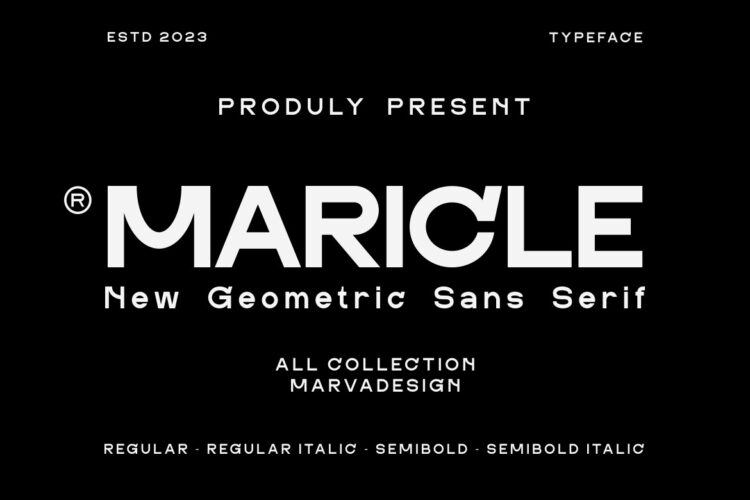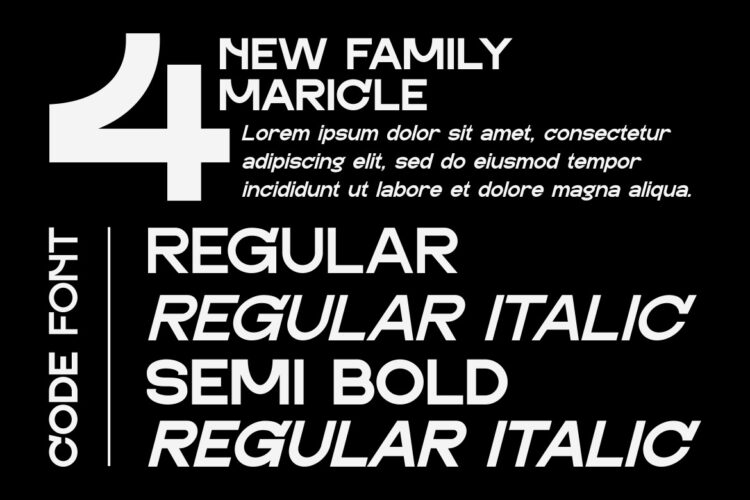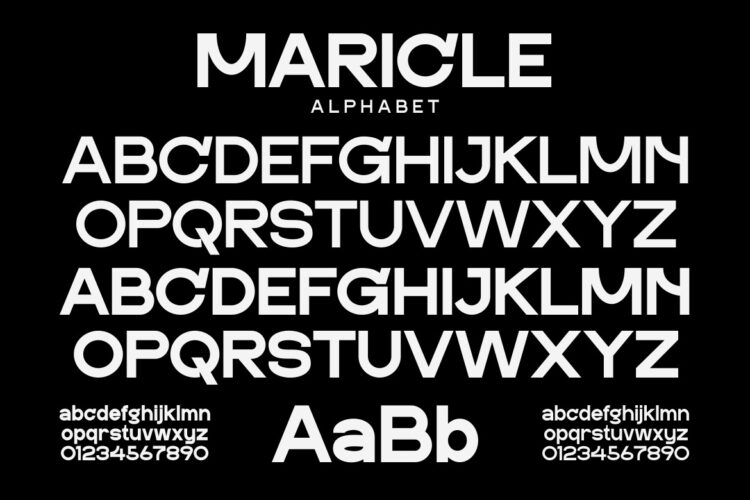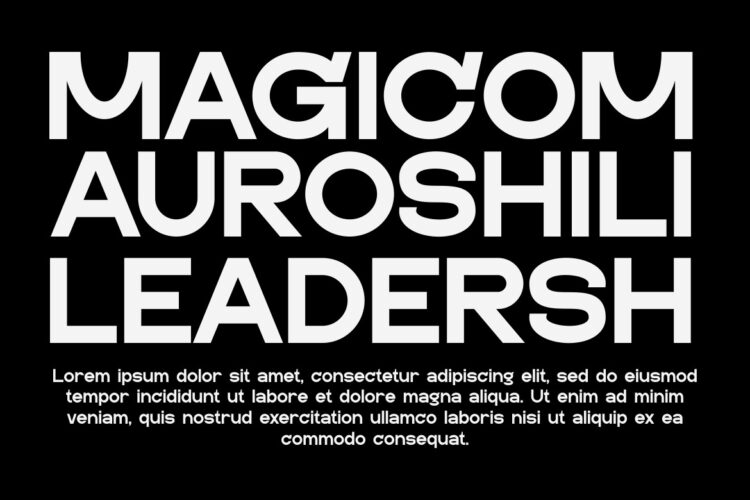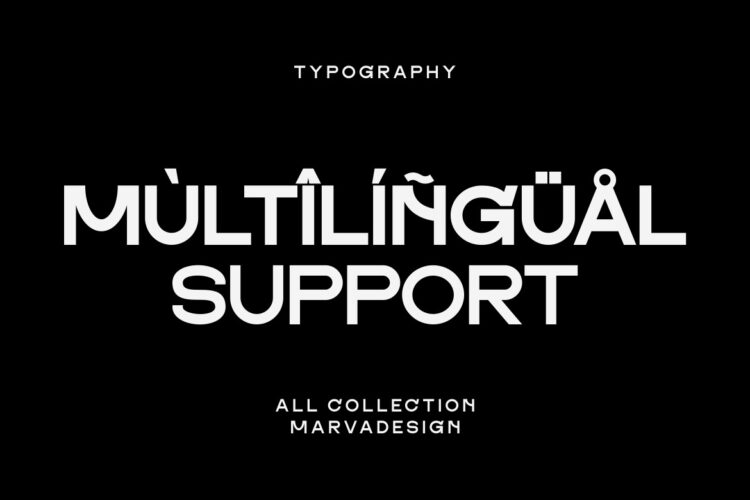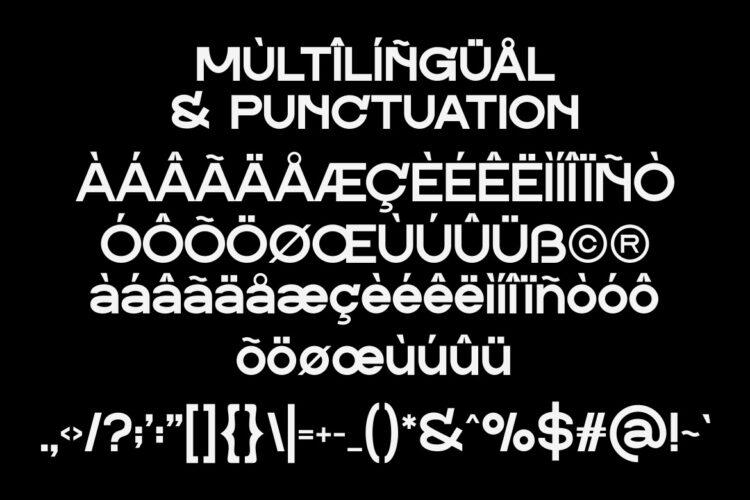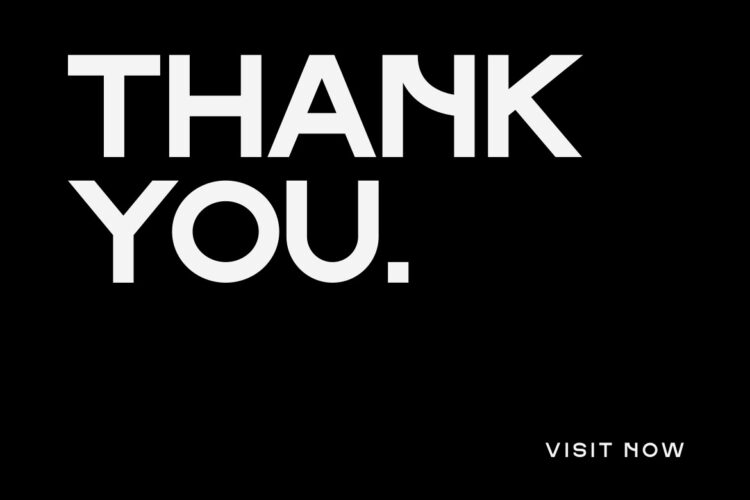
Geometric Sans Serif
MARICLE Font – Modern Font is a bold and authentic display font. The font is suitable for any branding project like logo,Template Design, Product and many more. outstanding in a wide range of contexts.
• Uppercase
• Lowercase
• Multilingual